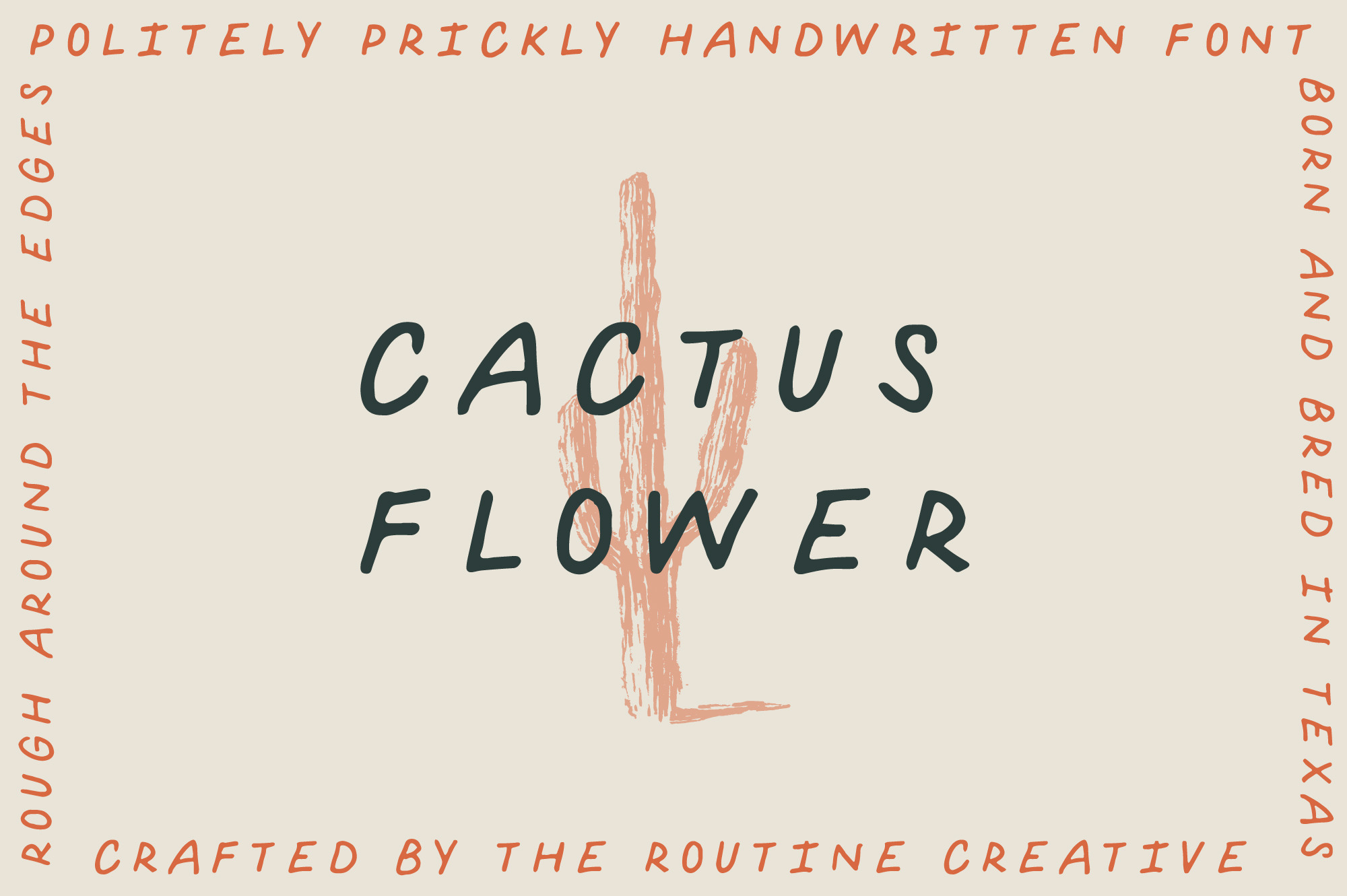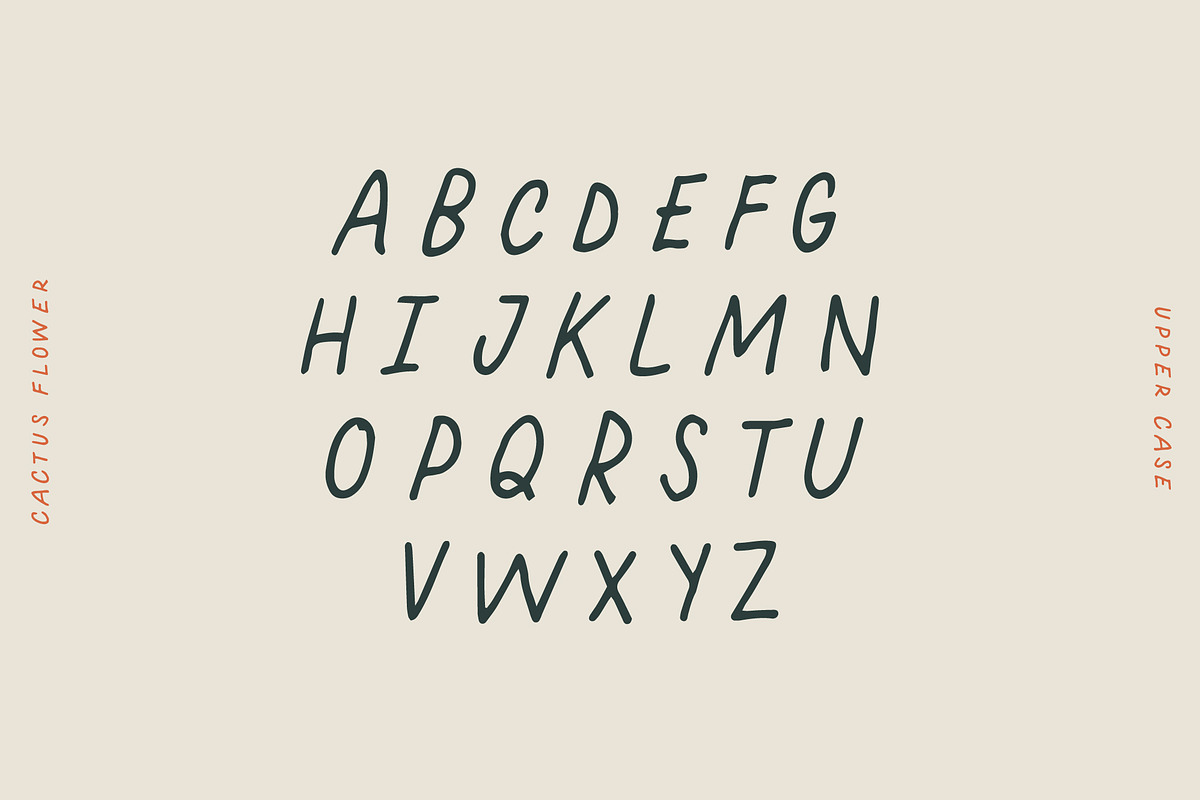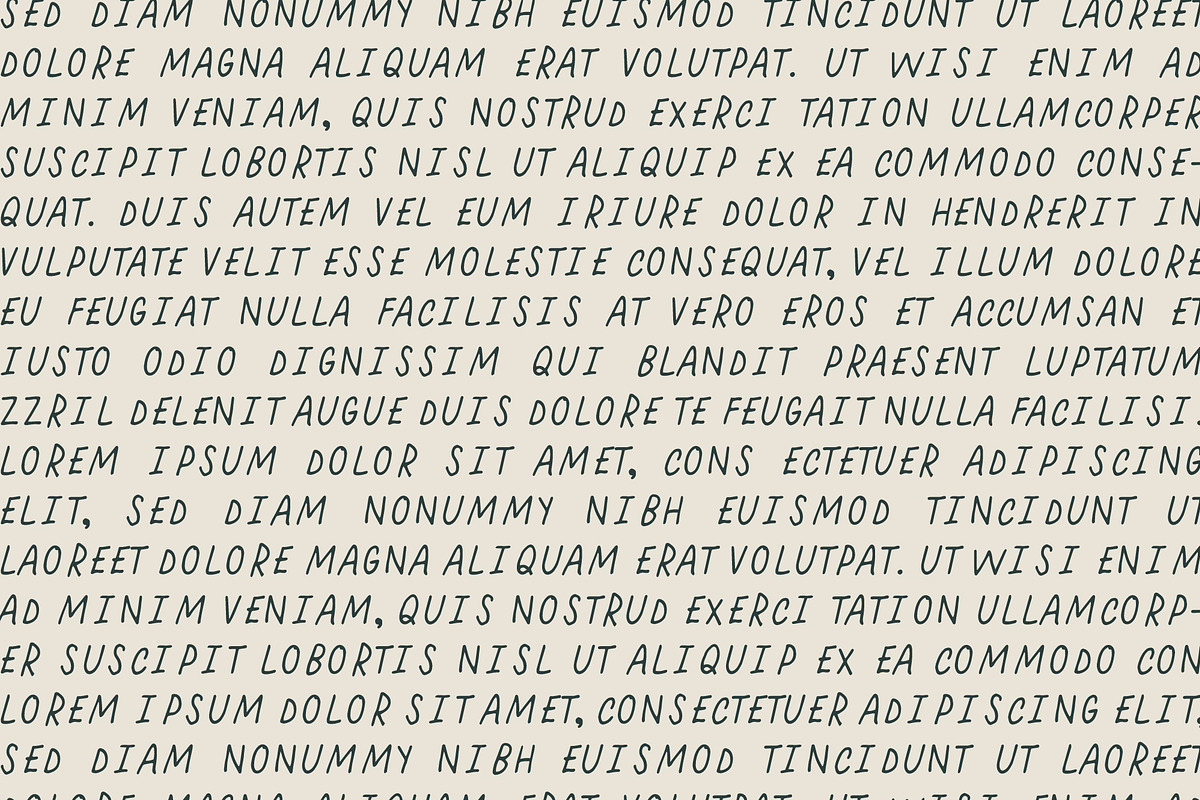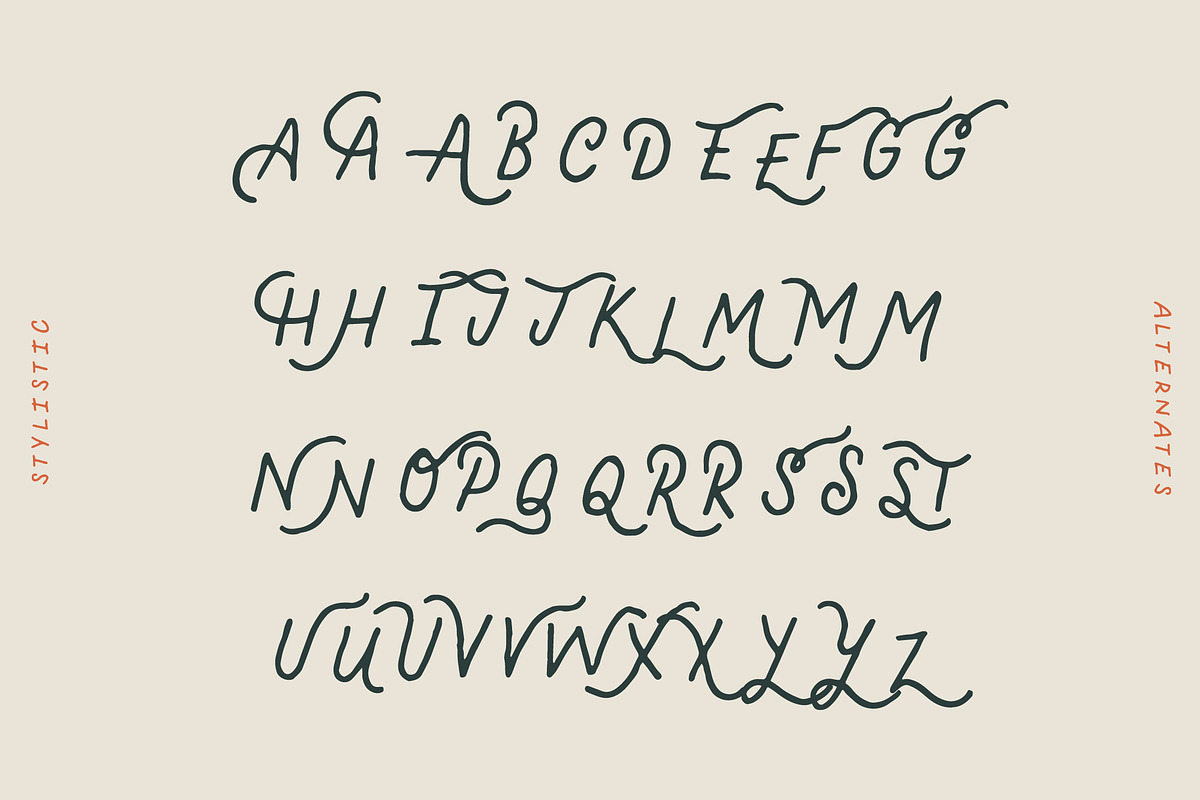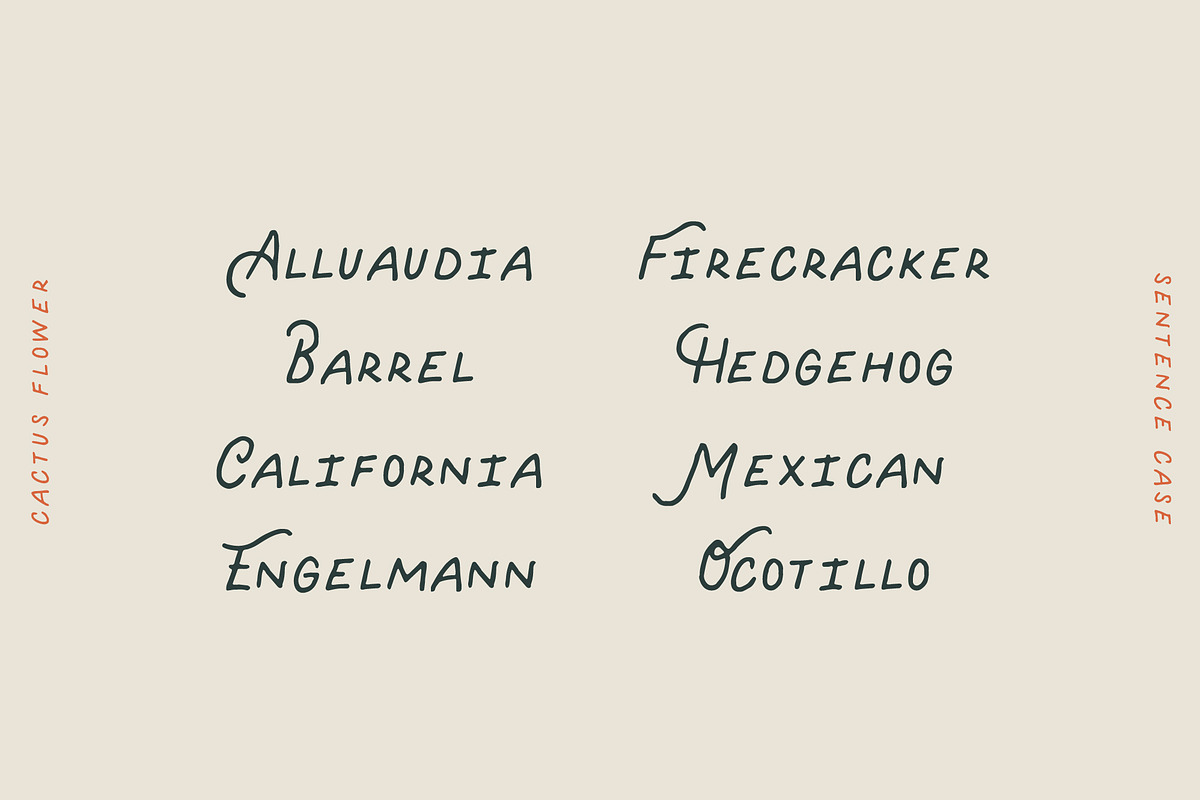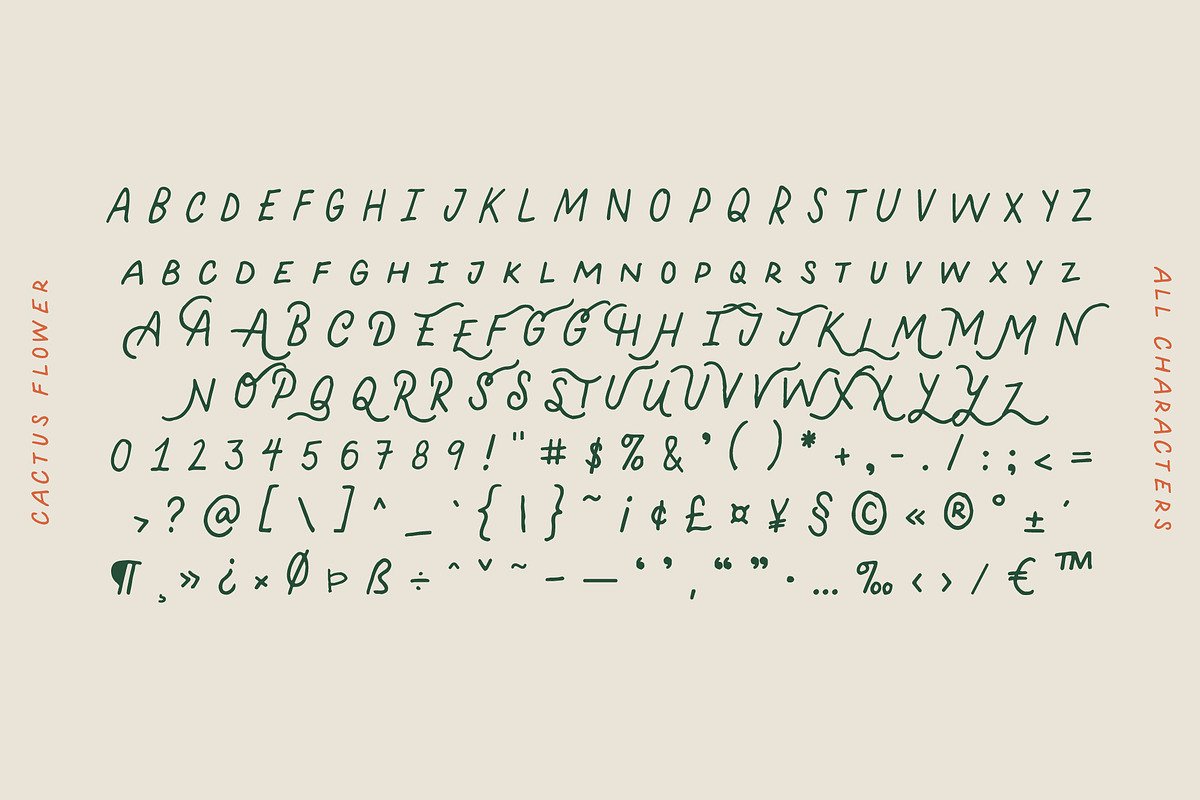
Cactus Flower - Handwritten Font
Cactus Flower is a politely prickly handwritten font. It is rough around the edges but gives a nice smooth handwritten touch to any design. The stylistic alternate Capitals make it versatile and fun to work with. Snag your copy today and get creative!